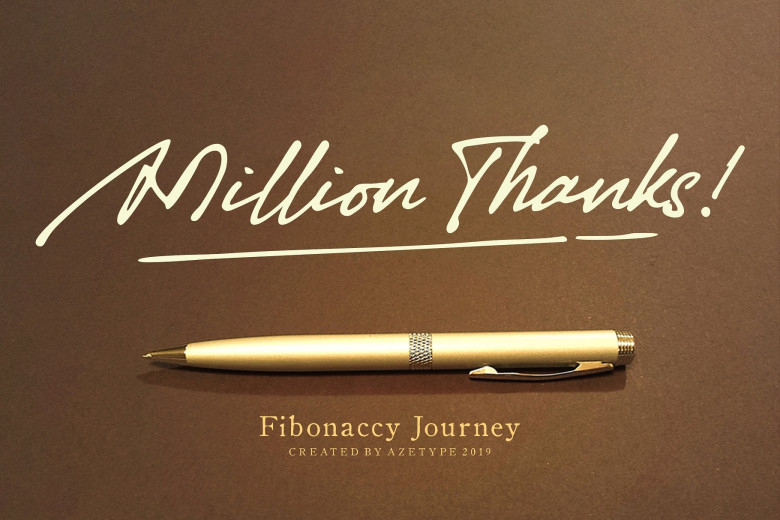
Fibonaccy Journey Script Font
This is a special script with a touch of handwritten ink texture. And a unique quote style. Introducing Fibonaccy Journey Font. A Manuscript Font crafted carefully. Based on original signature hand scratches that looks Classy and Vintage style. This font can be used at any time and any project. You can see in the presentation picture above, how it’s works!
So, this font can give a different touch to all your design projects e.g. watermark, quotes, logotype, poster design, personal branding, lettering, photography needs, blog header, wedding, letter, invitation, stationery,etc.